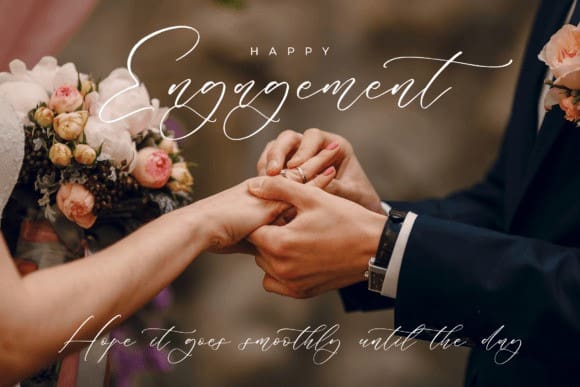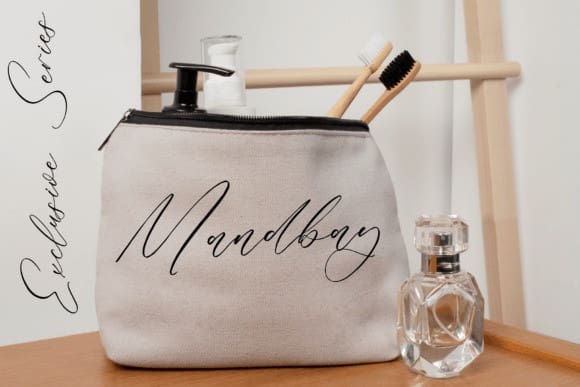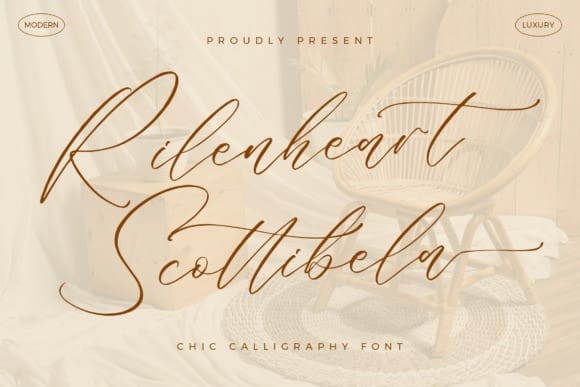
Rilenheart Scottibela Font
Rilenheart Scottibela Font is a dazzling script font. This font is neatly crafted and highly detailed. Whatever the topic, this font will be a wonderful asset to your font library, as it has the potential to enhance any creation.